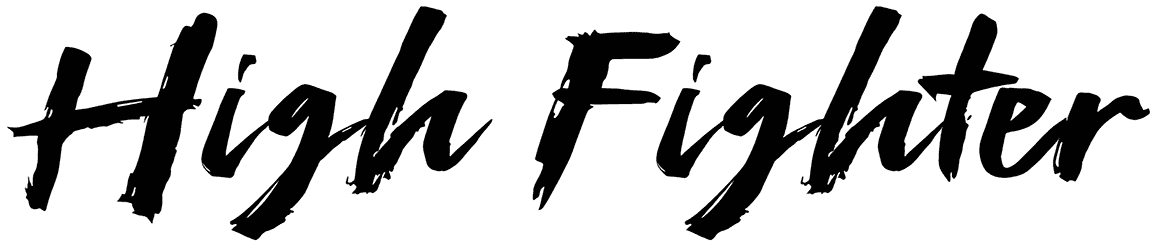
High Fighter Font
If you want to have a cool and urban vision for your design, it is easily accessible with a ninja font like High Fighter. This script font has a natural and artistic form that is going to amaze your viewers. High Fighter font would be a great pickup for a skateboard design, hip-hop party flyer, or so forth.